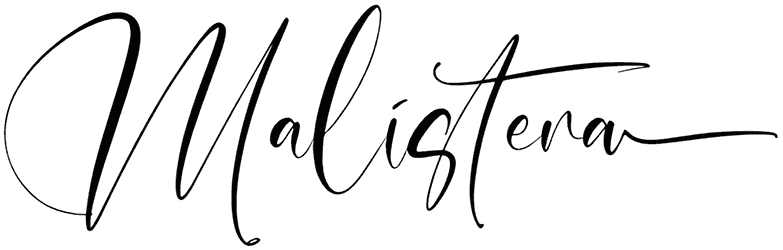
Malistera Font
Malistera is a lovely script font that displays charm in the form of two different styles. This type is for those who want to add a beautiful and refreshing look to their designs.
Smooth lines and continuous connections in this calligraphy font have harmed its readability, but they have doubled its beauty. So if you’re looking for a way to make the audience focus on your writing for a few moments, Malistera is the most beautiful tool to achieve this.